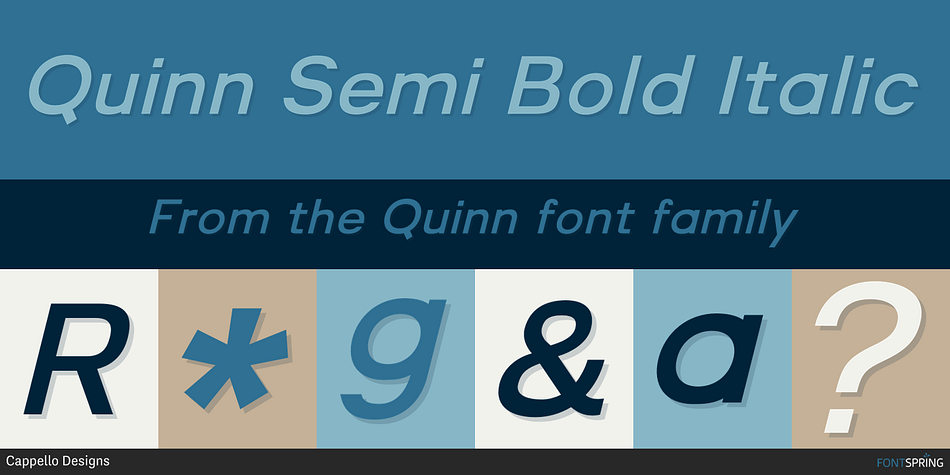
Quinn Semi Bold Italic
Designed by Cassandra Cappello, Quinn is a sans serif font family. This typeface has ten styles and was published by Cappello Designs.
Quinn is a modern, minimal, and slightly rounded sans serif typeface. It’s a rounded, grotesk sans-serif typeface. These typefaces originated in the 20th century, and are strongly associated with swiss style typographic design.
It was designed to be used for both headers and body copy. This font family includes all Latin characters (including accents), numbers, special characters, and punctuation.